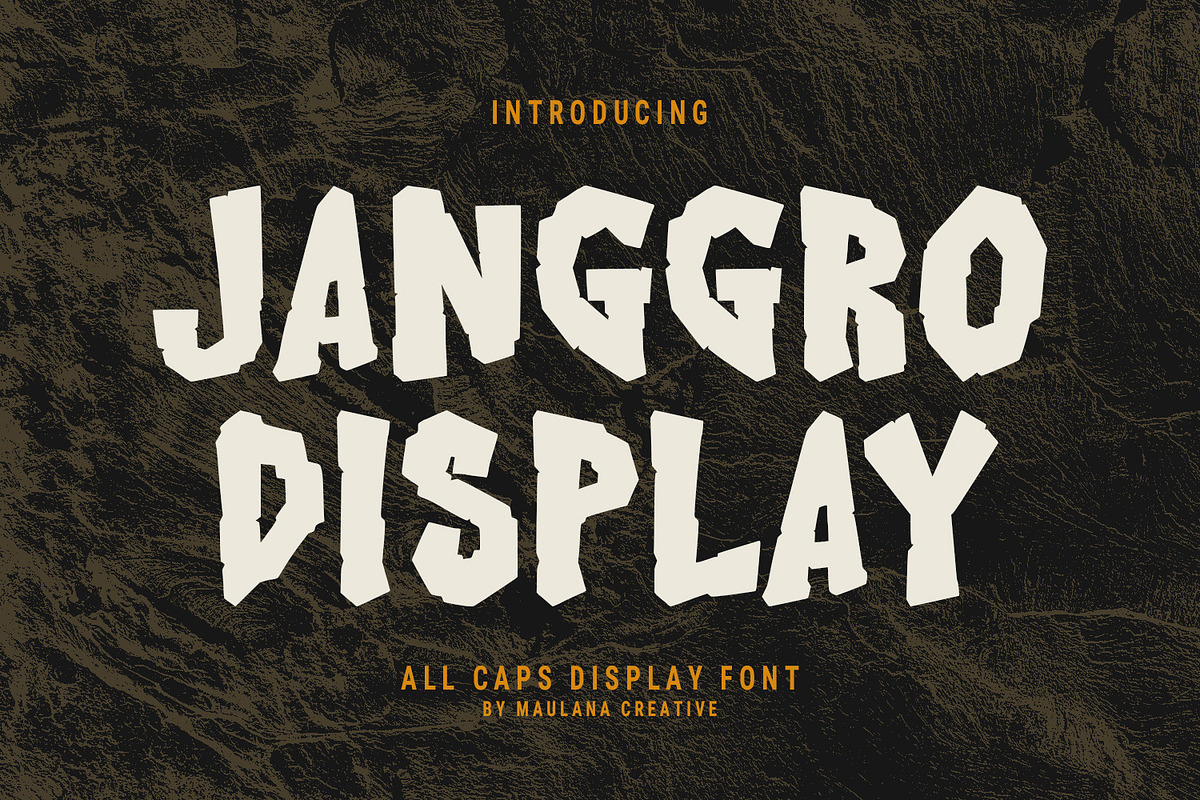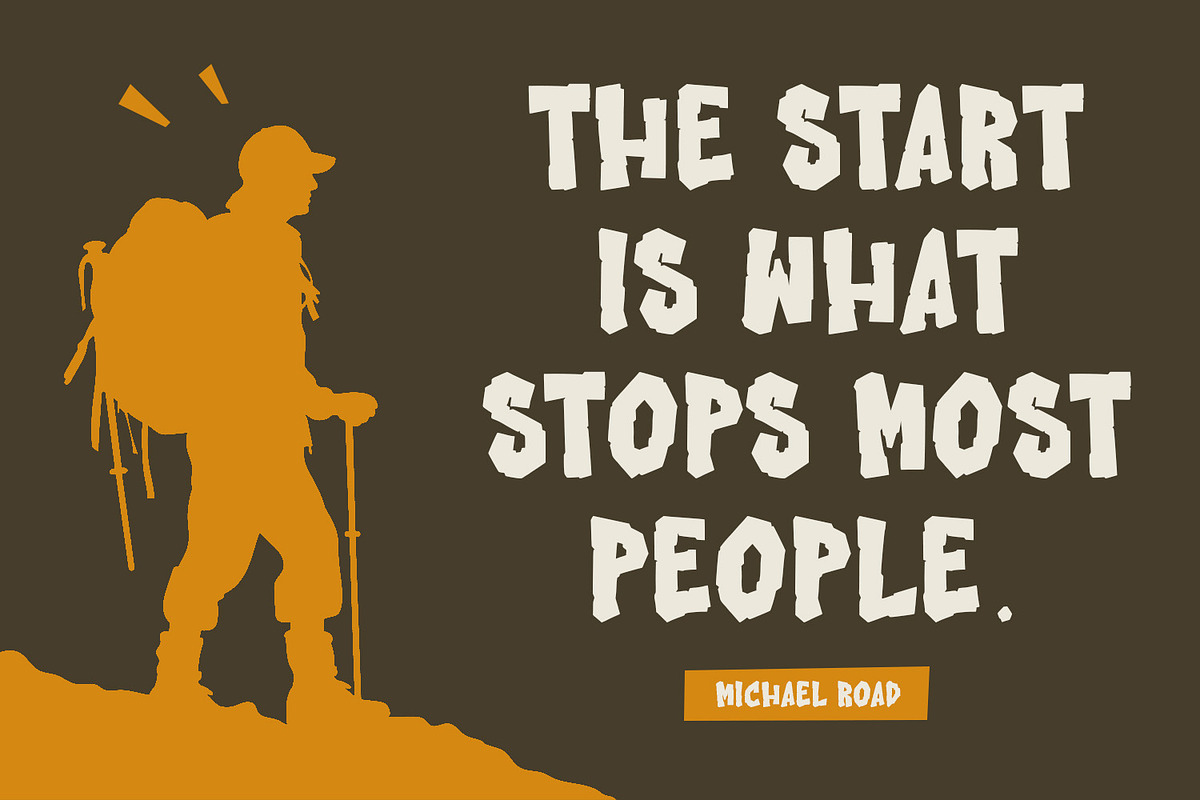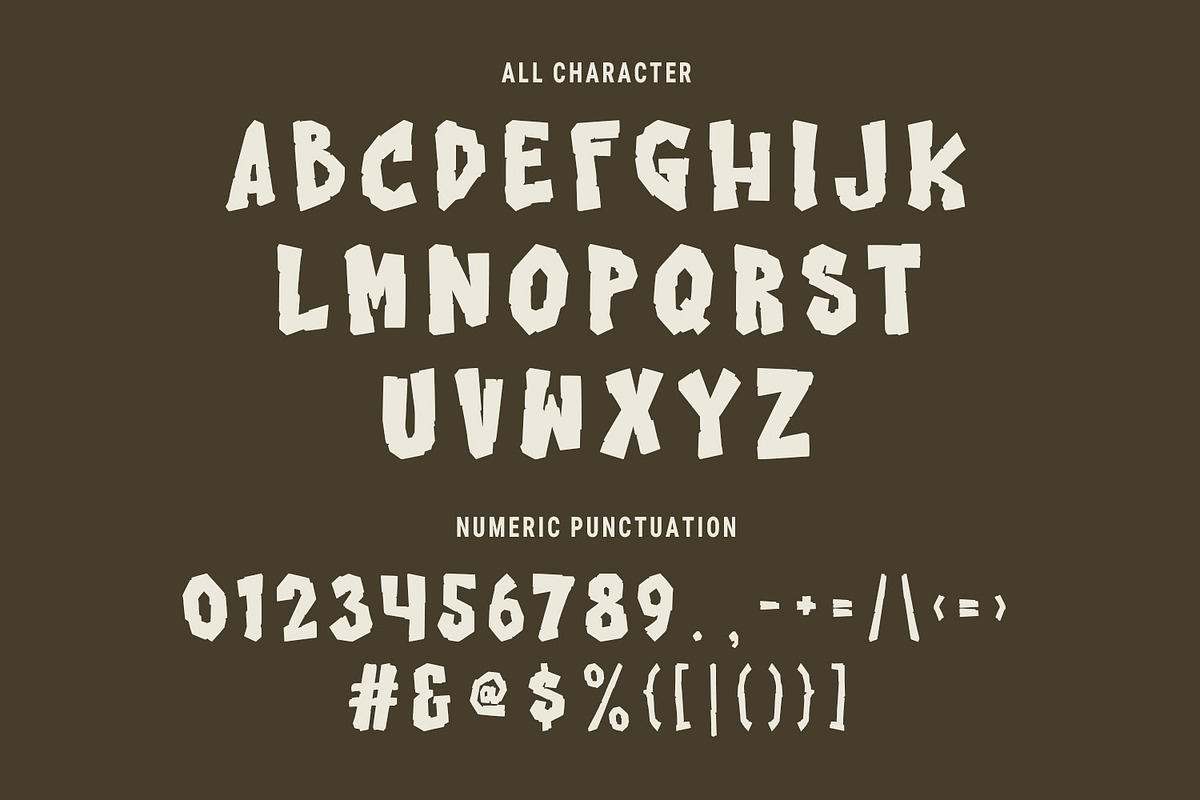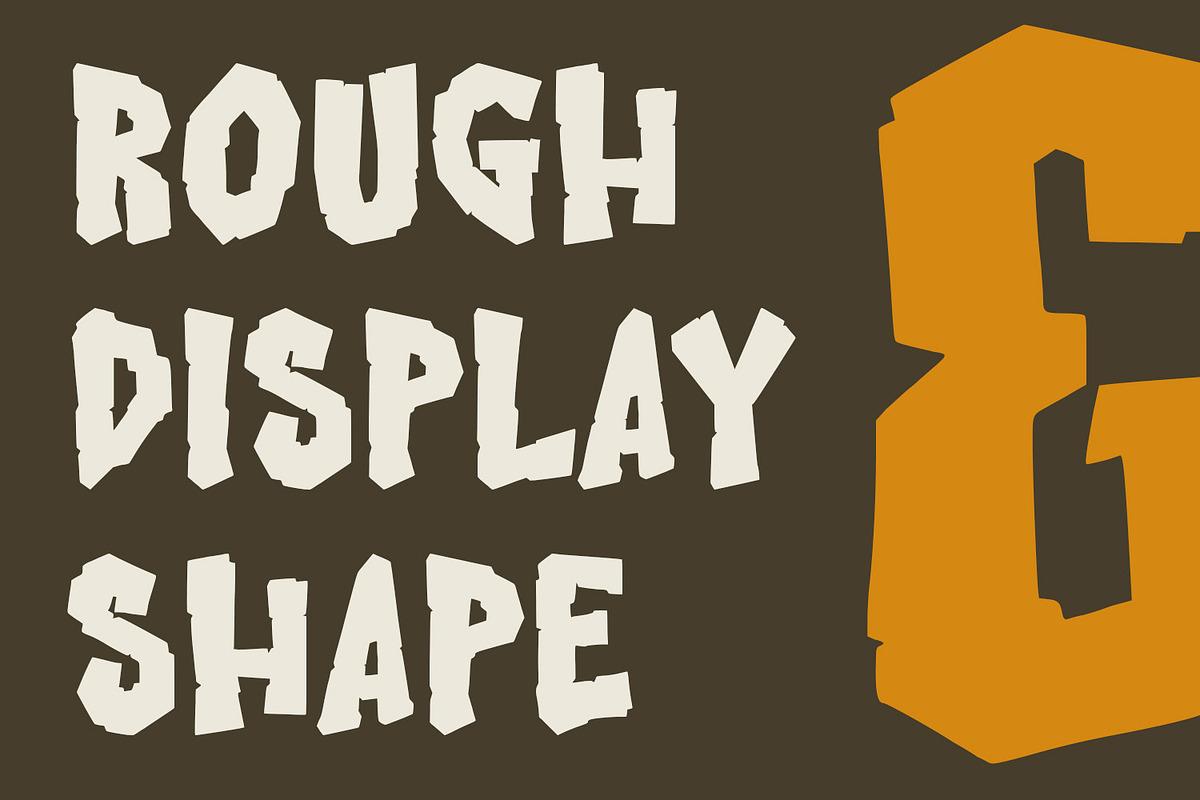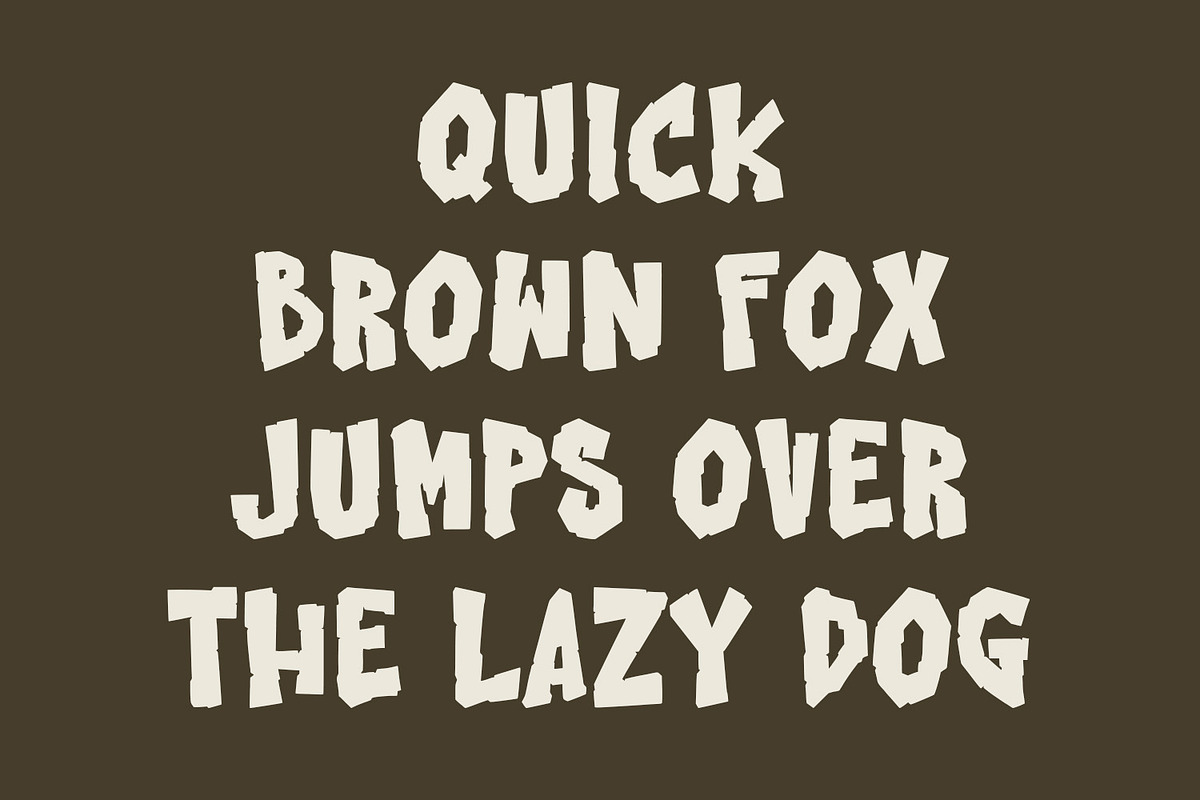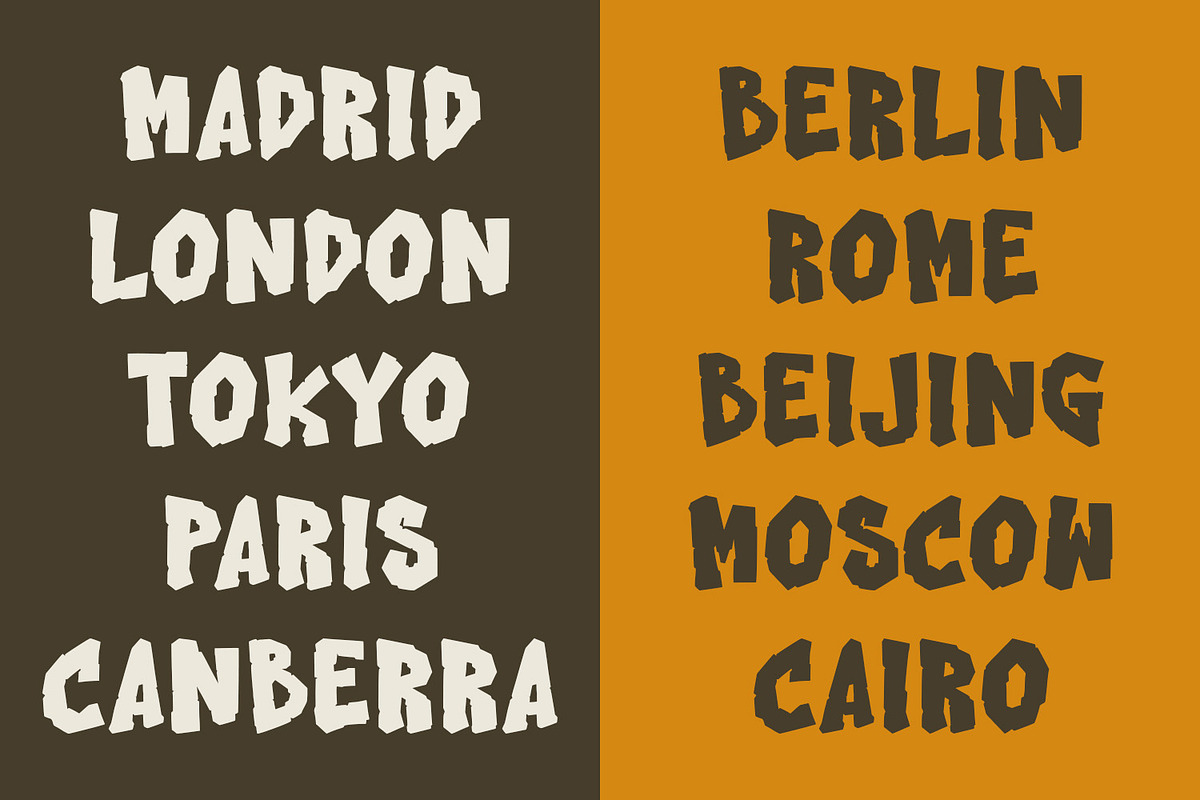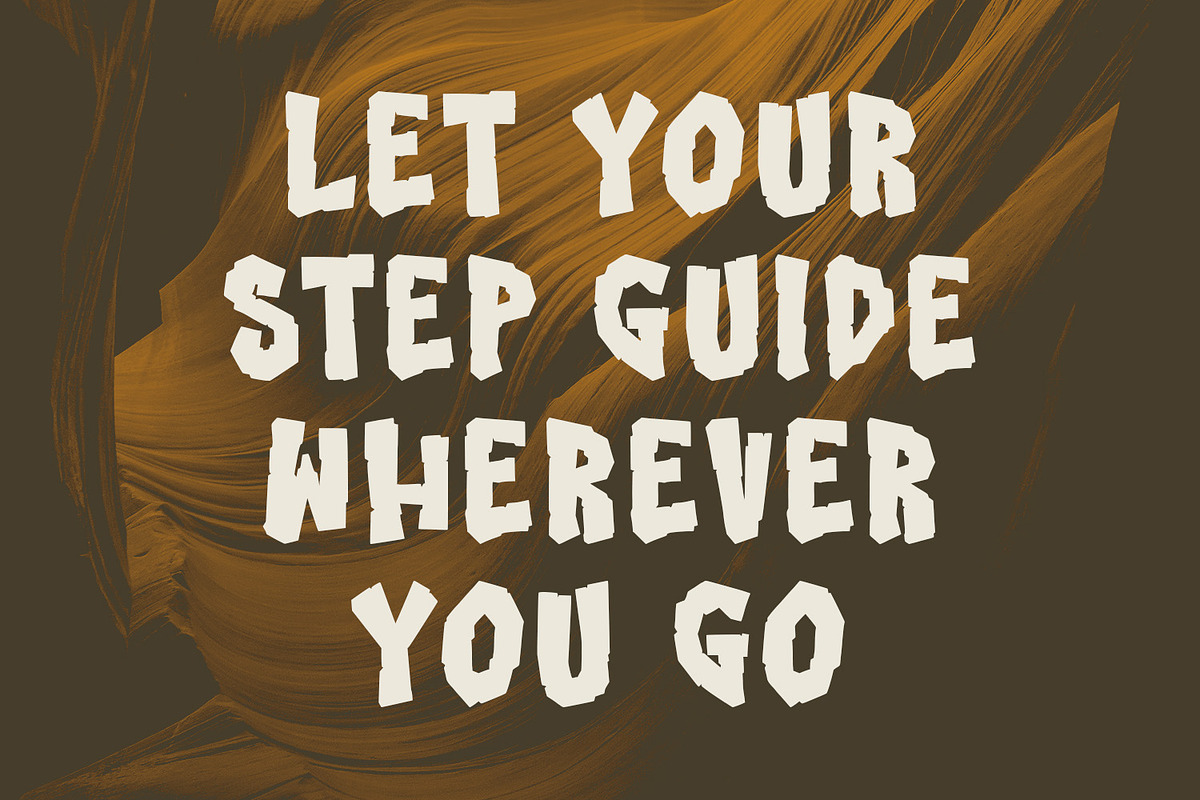
Janggro Display Font
Janggro all caps sans display font. Heavy stroke and fun character. To give you an extra creative work. Janggro font support multilingual more than 100+ language. This font is good for logo design, Social media, Movie Titles, Books Titles, a short text even a long text letter and good for your secondary text font with script or serif. Make a stunning work with Janggro display font.